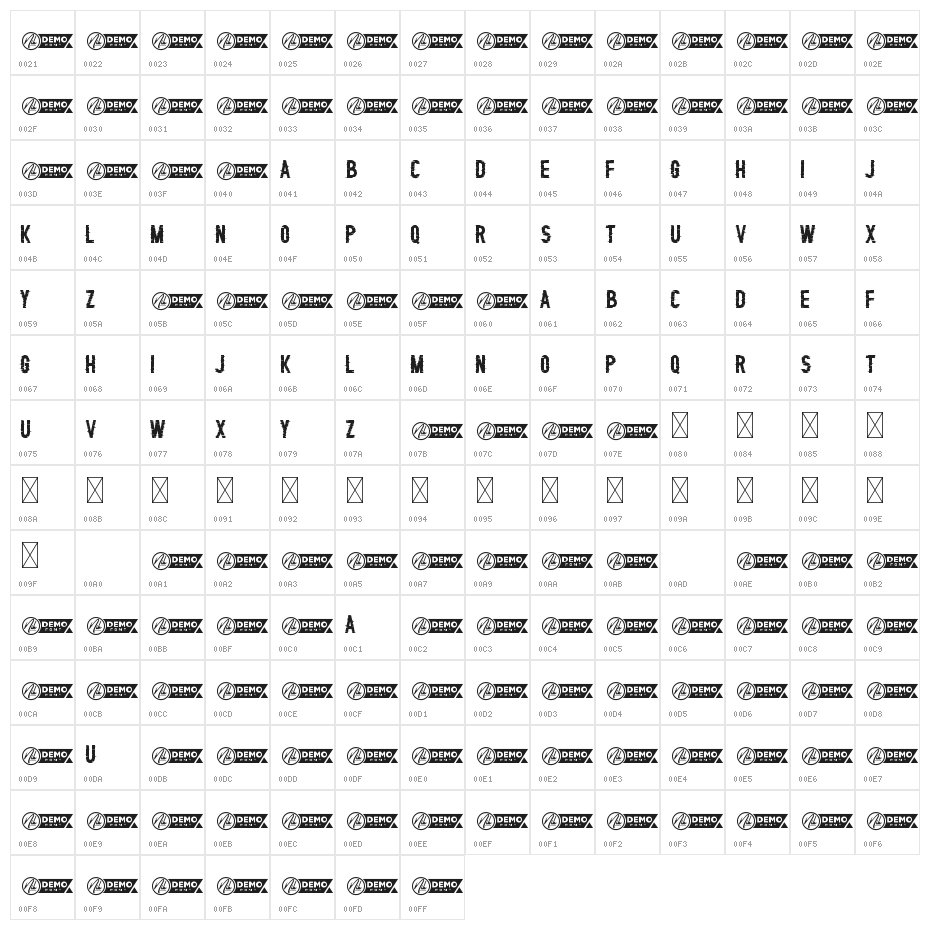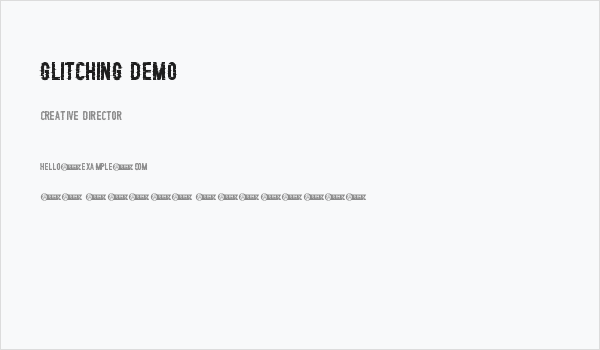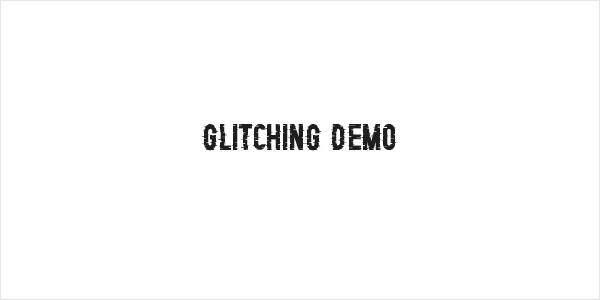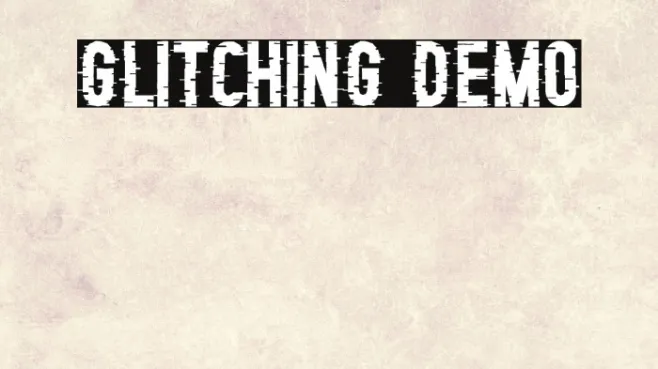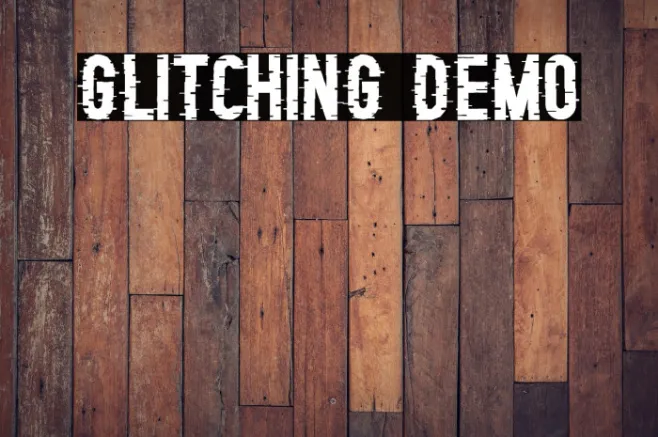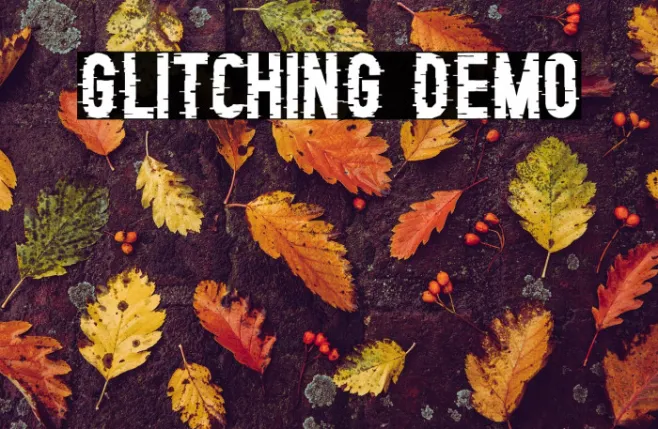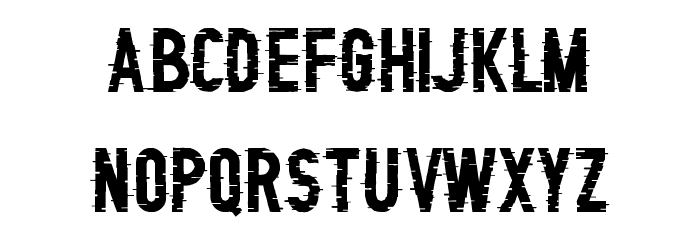
Glitching Demo Font
Glitching Demo Description
This font features a unique glitch effect, giving it a digital, distorted appearance. The characters appear as if they are experiencing a visual error, with horizontal lines cutting through the letters, creating a fragmented look. This style is reminiscent of digital interference or a corrupted video signal, making it ideal for projects that require a modern, edgy, or technological aesthetic. The uppercase letters are bold and impactful, ensuring they stand out in any design. The font's distinct style is perfect for creating attention-grabbing headlines or logos that need a futuristic or cyberpunk vibe.
| Proposed Projects | Ideal for tech-themed designs, video game graphics, sci-fi posters, and edgy branding projects. |